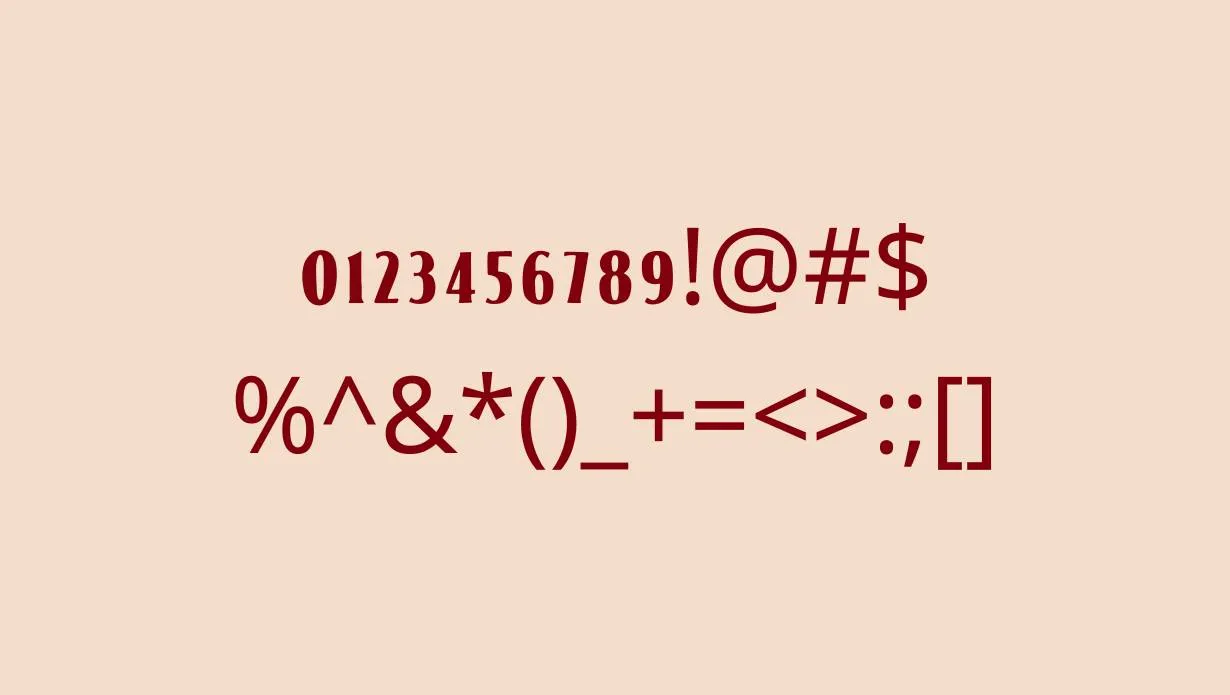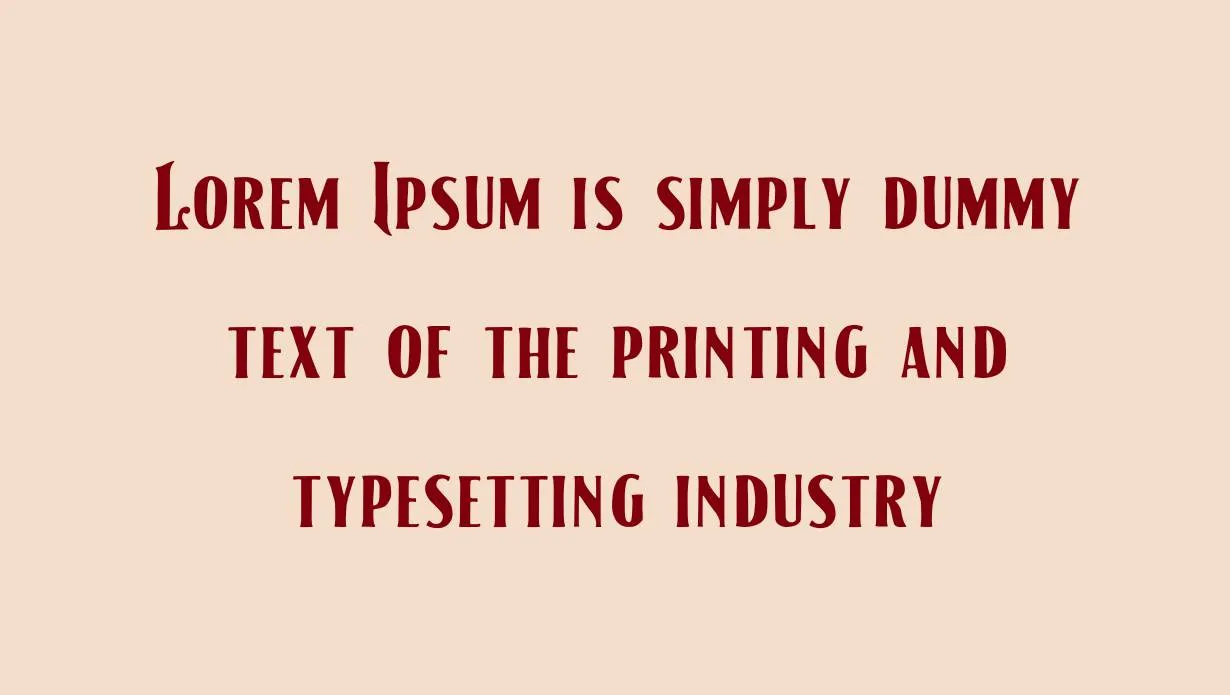
Here we discuss a very royal look fancy typeface American Label Vintage Font. This amazing font was designed by Holi Majid and manufactured by Holifonts. The look of this typeface is very classy for all projects. It has amazing features like 157 characters, 119 glyphs, and 1000 units per Em. The weight of this font is Semi-bold and its width is condensed.
It has three different styles such as American label regular, American Rough, and American Label Striped. It supports the file format True Type Font and you can easily use it on different devices for use such as PCs, Android, and MAC.
| Name | American Label Vintage Font |
| Designer | Holi Majid |